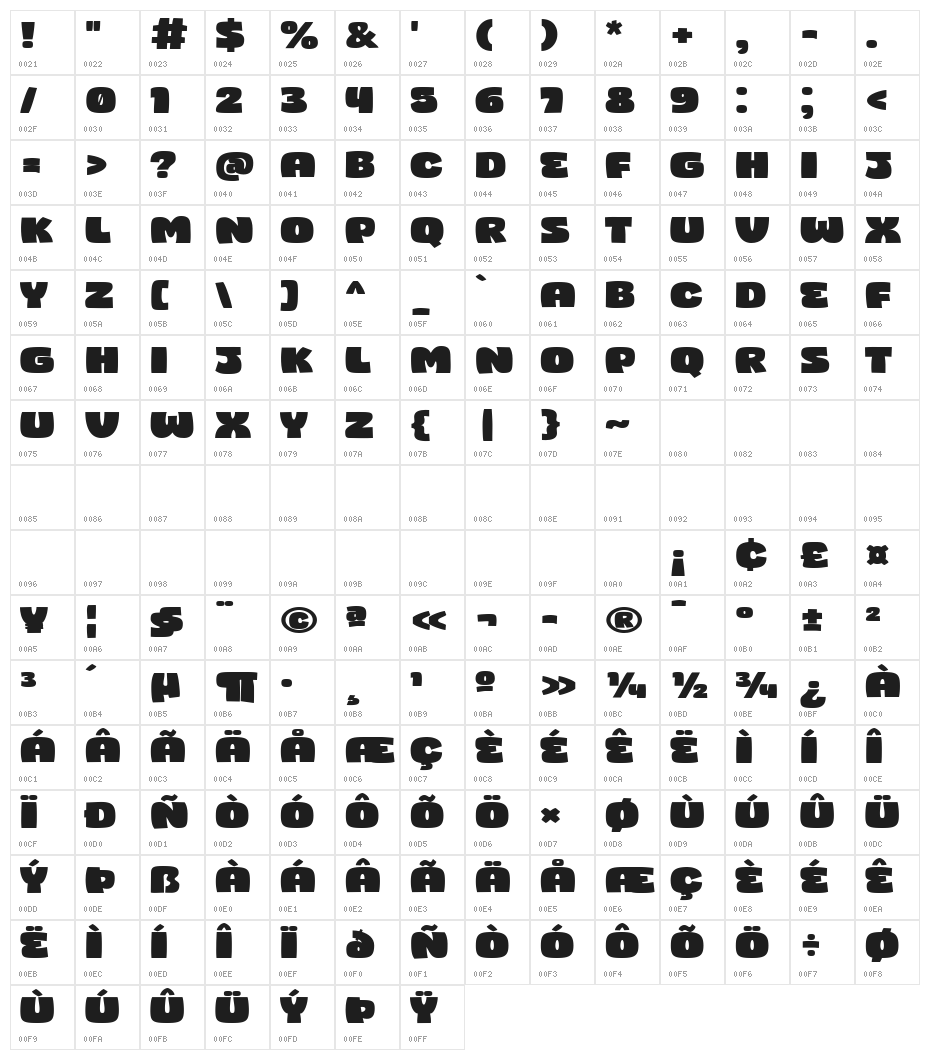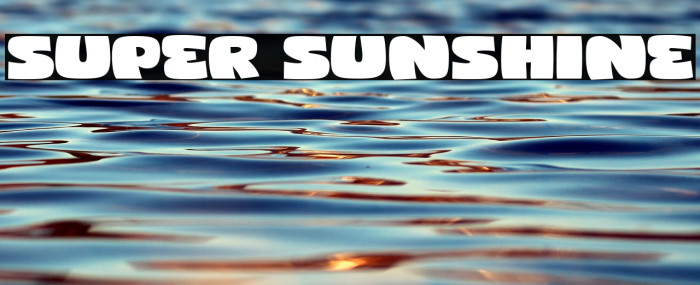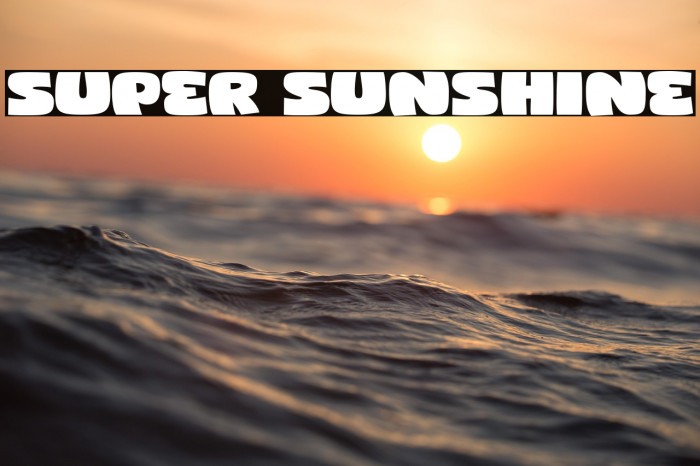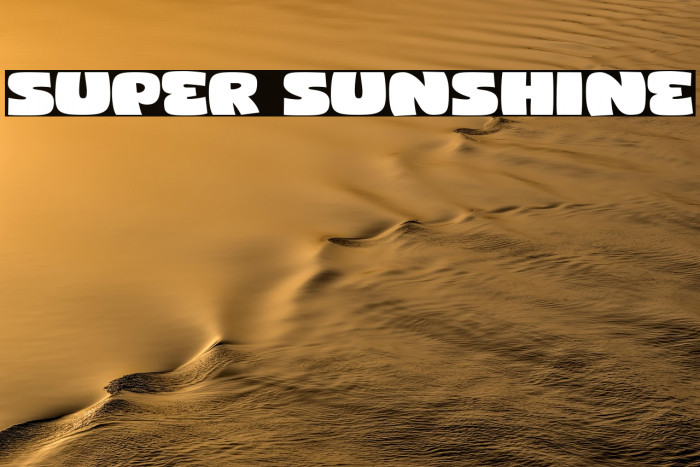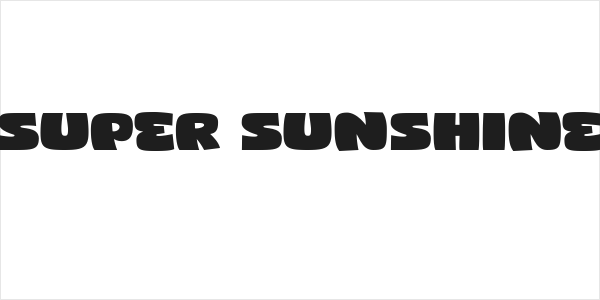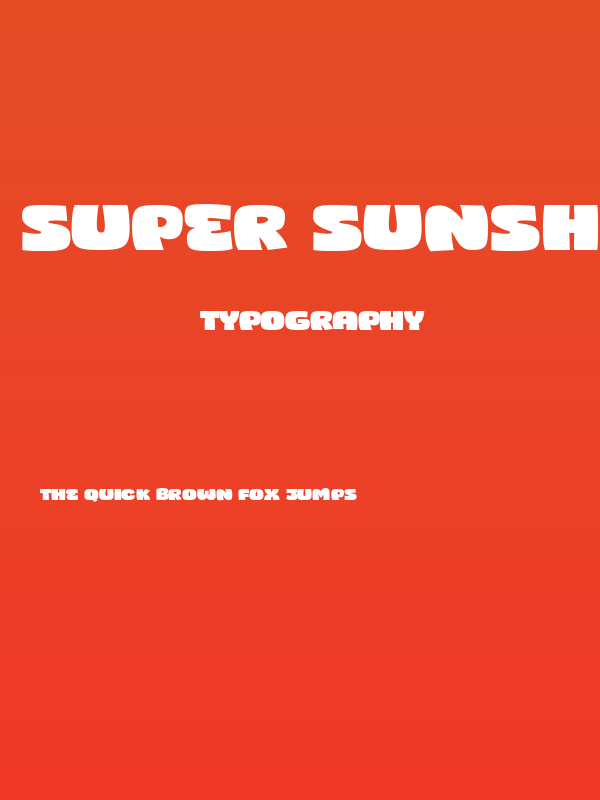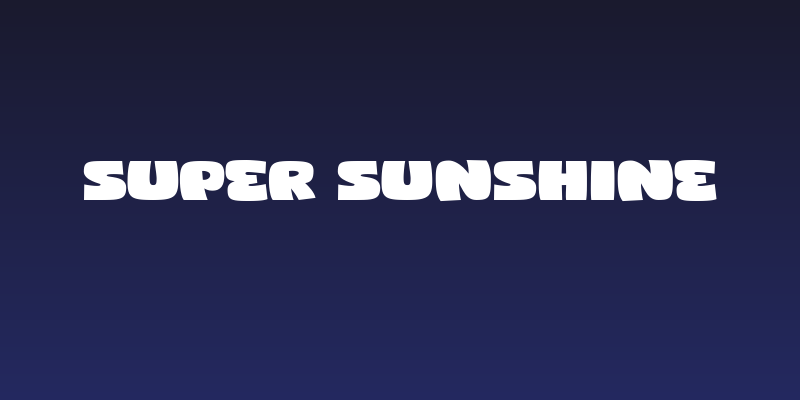
Super Sunshine Font
Super Sunshine Description
This font features a bold and playful style with rounded, thick strokes that give it a bubbly and friendly appearance. The characters are wide and have a consistent thickness throughout, contributing to a cohesive and uniform look. The uppercase and lowercase letters maintain a similar weight, enhancing readability while retaining a whimsical charm. The numbers and special characters are designed to match the overall aesthetic, ensuring a seamless integration in any design. This font is ideal for projects that require a fun and engaging visual element, such as children's books, playful branding, or eye-catching posters.
| Overall Style | Playful, Fun, Whimsical |
| Proposed Projects | Ideal for children's books, playful branding, posters, and any design needing a fun, engaging look. |